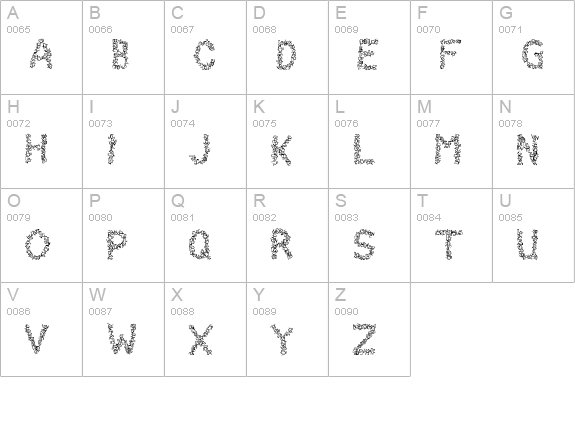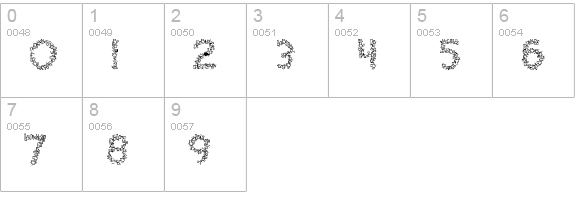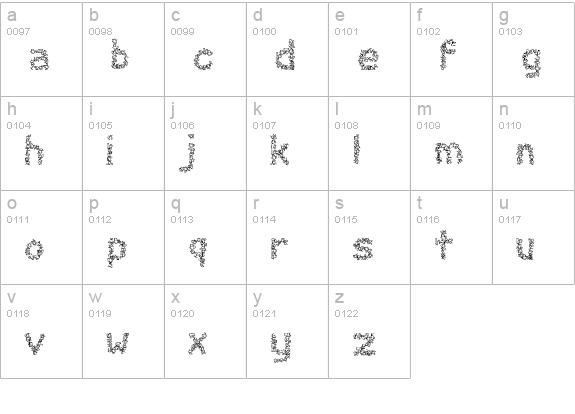
Introducing Clawless font, a captivating and versatile typeface that exudes elegance and sophistication. With its unique design and intricate details, Clawless is sure to make your projects stand out. This stunning font is perfect for adding a touch of luxury to any design, whether it be for branding, invitations, posters, or more. The best part? Clawless font is completely free to download at FontsMarket.com. This means you can elevate your designs without breaking the bank. Don't miss out on this fabulous font - download Clawless today and unleash your creativity!